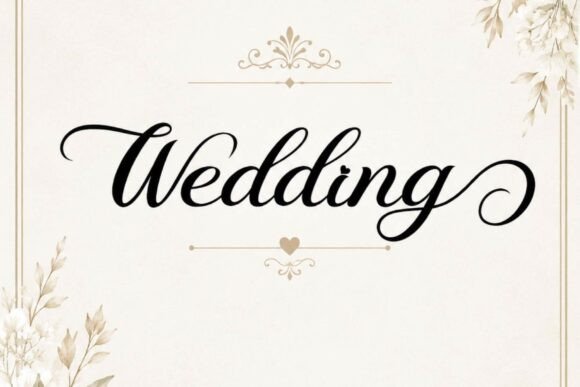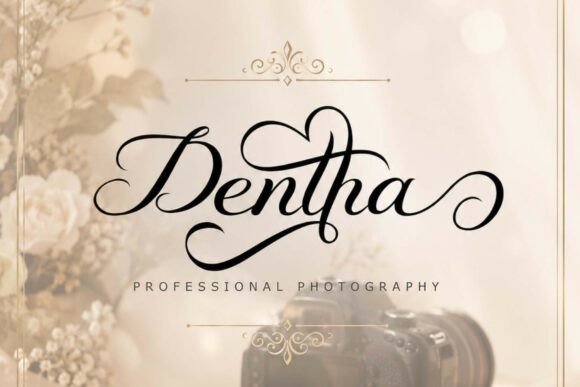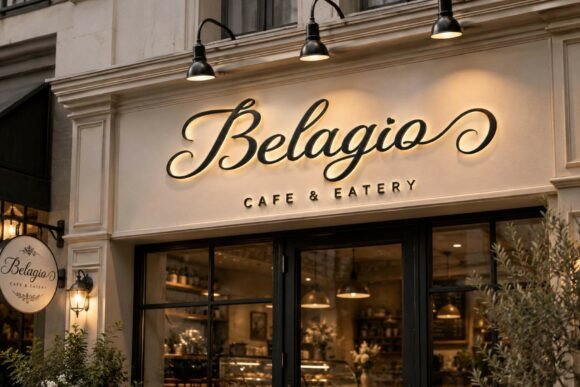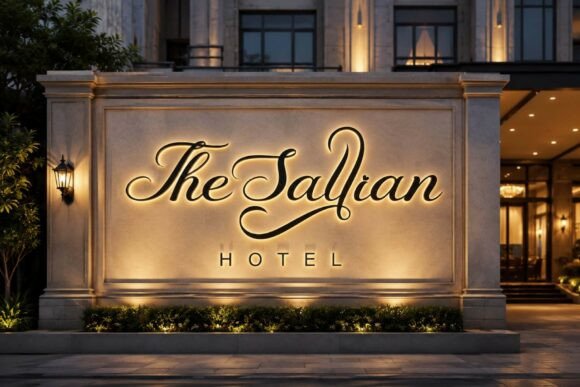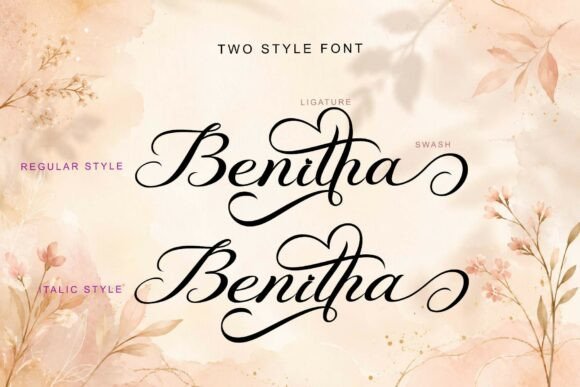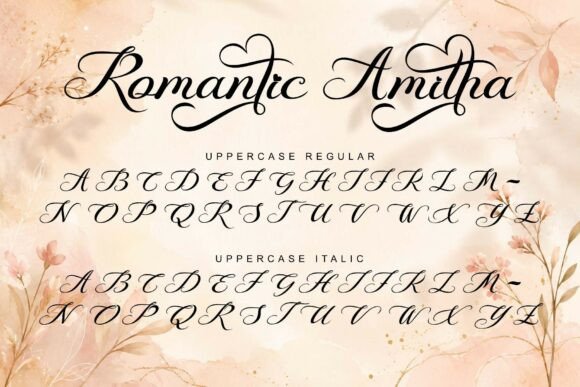
Introduction to Romantic Amitha Font
“Romantic Amitha” is a beautiful and elegant handwritten font.
It comes in two styles: regular and italic It features uppercase and lowercase letters, numerals, punctuations, multilingual support, ligatures, swashes, and alternates.
Key Features of Romantic Amitha Font